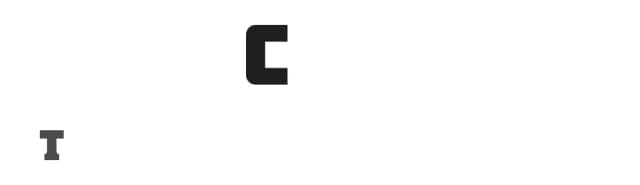
About Ala Font
Ala is a serif font designed by Naan Type Studio. It includes 157 glyphs, a regular weight, OTF (CFF) format, and 161 languages. Ala is free to download; check the license details on this page before commercial use. Serif fonts like Ala work best for body text, editorial layouts, book covers, and classic branding.
Ala Font is a versatile serif font that works for both headings and body text. Pair it with a contrasting sans-serif or slab serif font to add visual interest and a clear distinction between titles and body copy.
Ala Font
Ala Font is a serif typeface by Naan Type Studio, ideal for logos, invitations, branding, and creative projects.